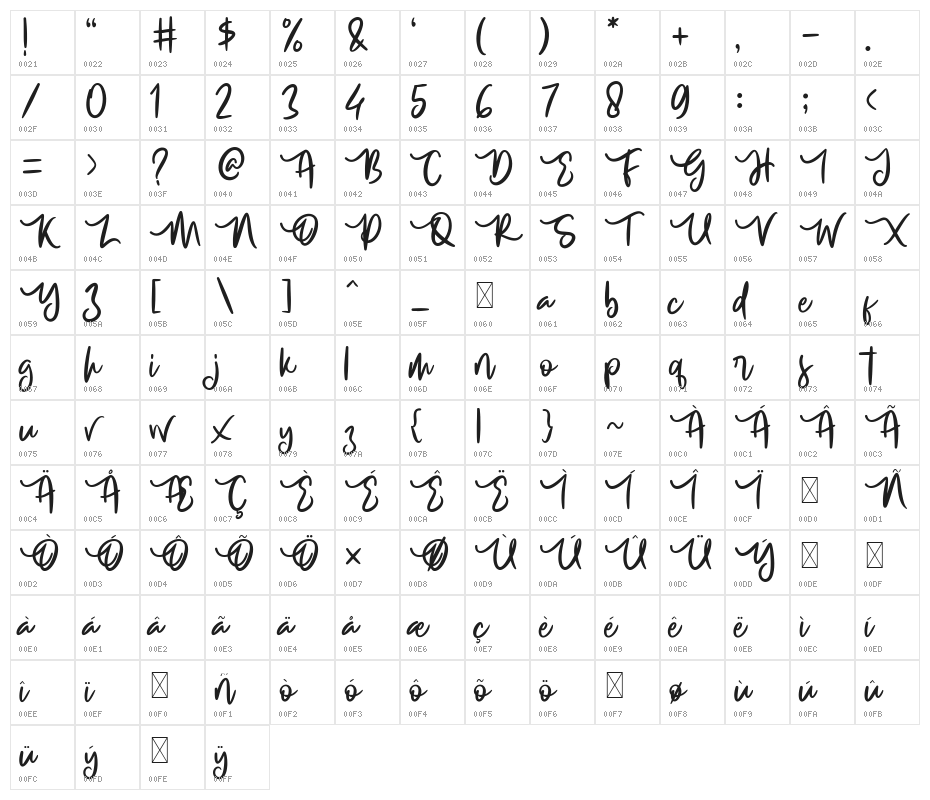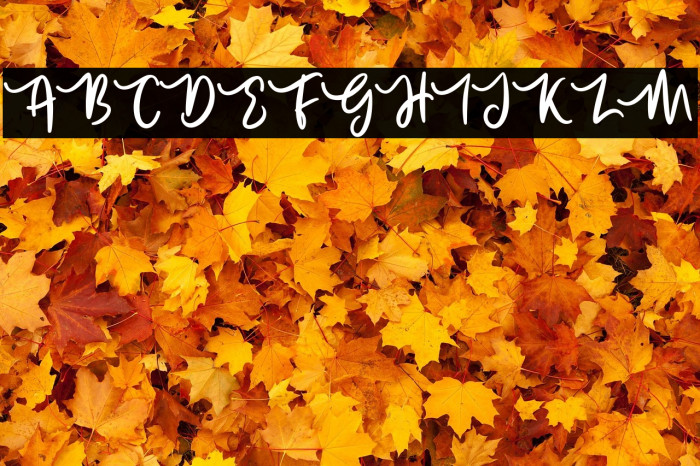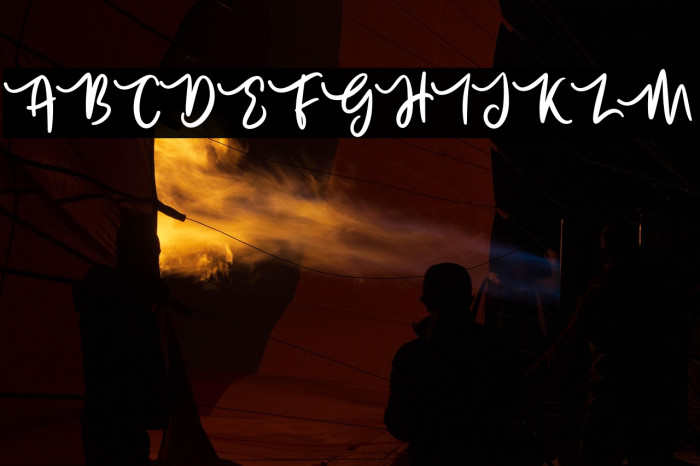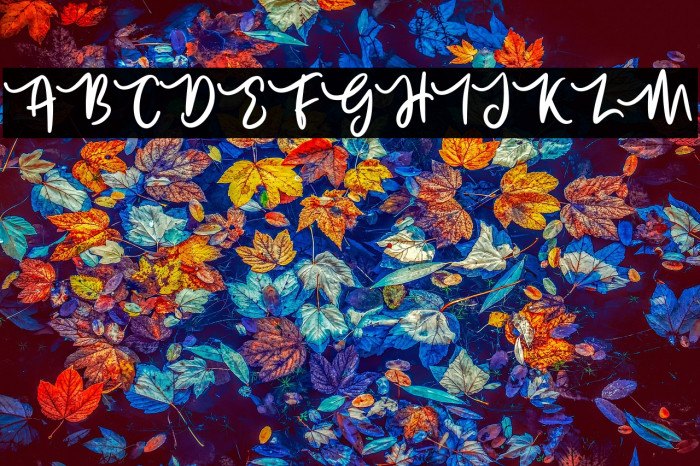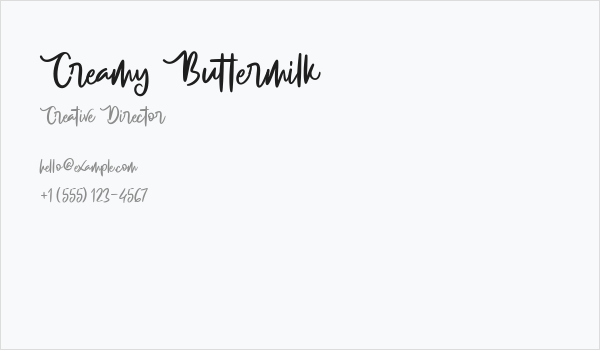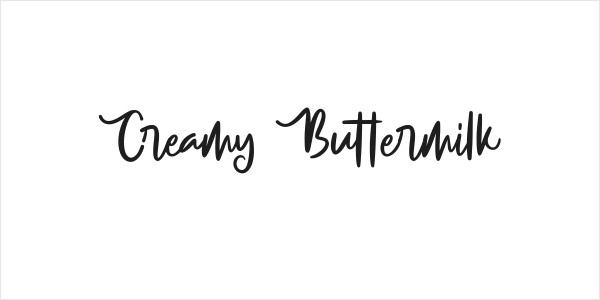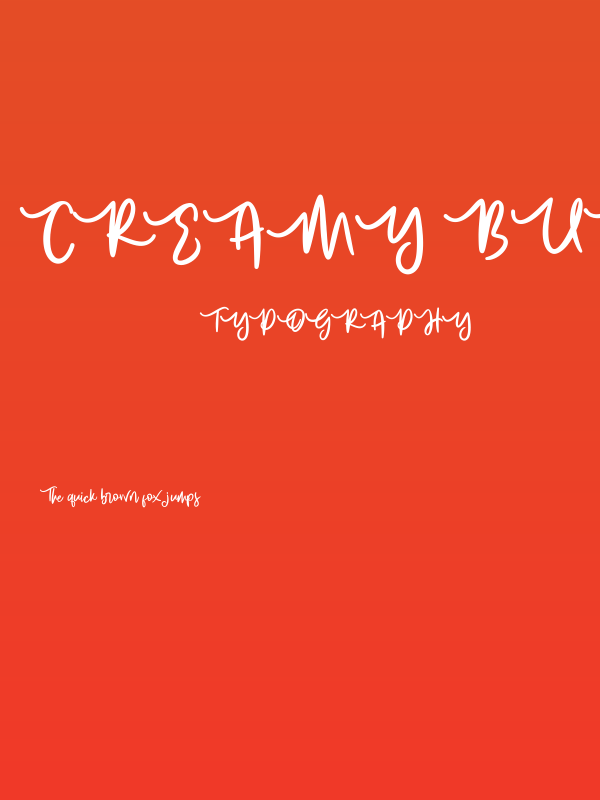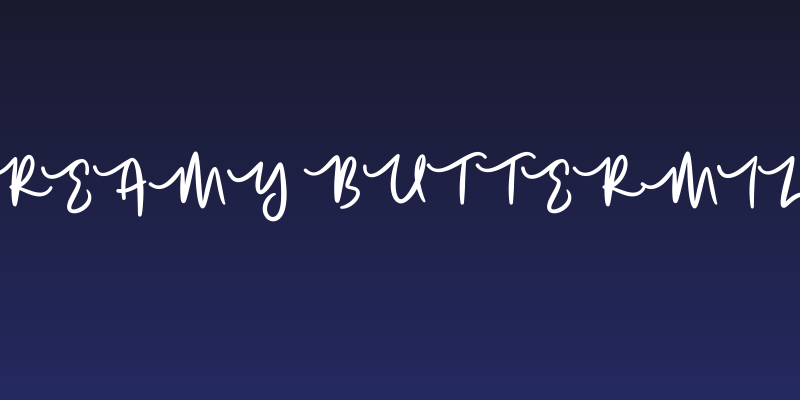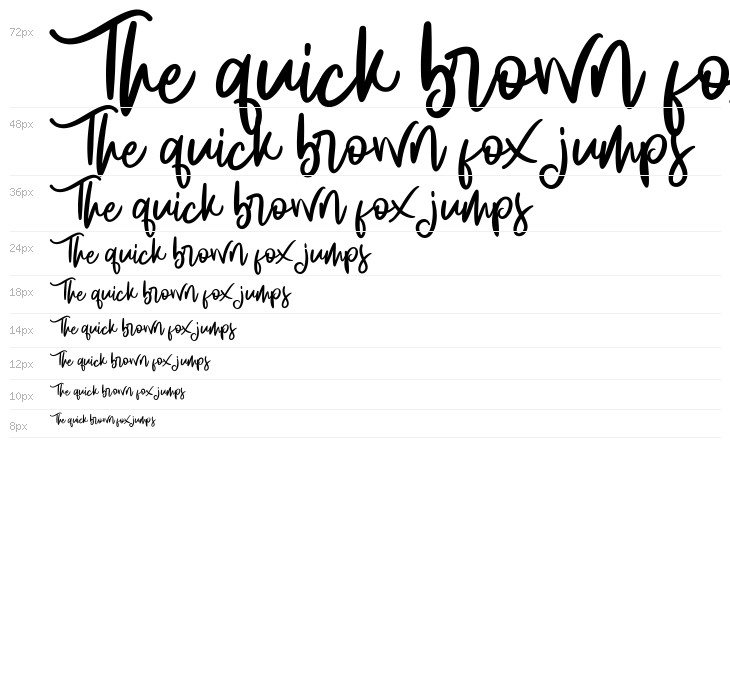
Creamy Buttermilk Font
Creamy Buttermilk Description
This font features a lively and flowing script style, characterized by its smooth, cursive letters that mimic a handwritten appearance. The uppercase letters are elegant and slightly elongated, while the lowercase letters maintain a consistent, rounded form. The numerals are bold and dynamic, complementing the overall playful aesthetic. Special characters are creatively integrated, maintaining the font's cohesive look. The strokes vary in thickness, providing a medium contrast that enhances readability while retaining a casual, friendly vibe.
| Use Case | Logos, Invitations, Social Media |
| Proposed Projects | Ideal for wedding invitations, greeting cards, branding projects, and social media graphics where a personal touch is desired. |